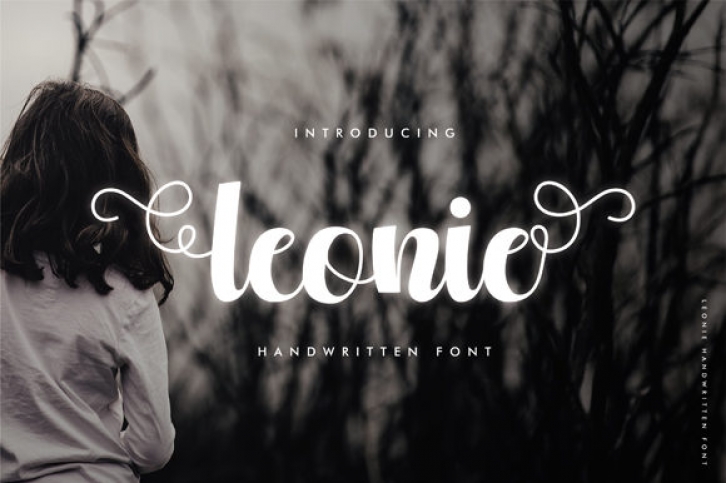
The Leonie is a cute and beautiful handwritten font. It can be used for various purposes such as: headings, signatures, logos, invitations, t-shirts, letterheads, signage’s, posters, badges, art quotes, and much more!